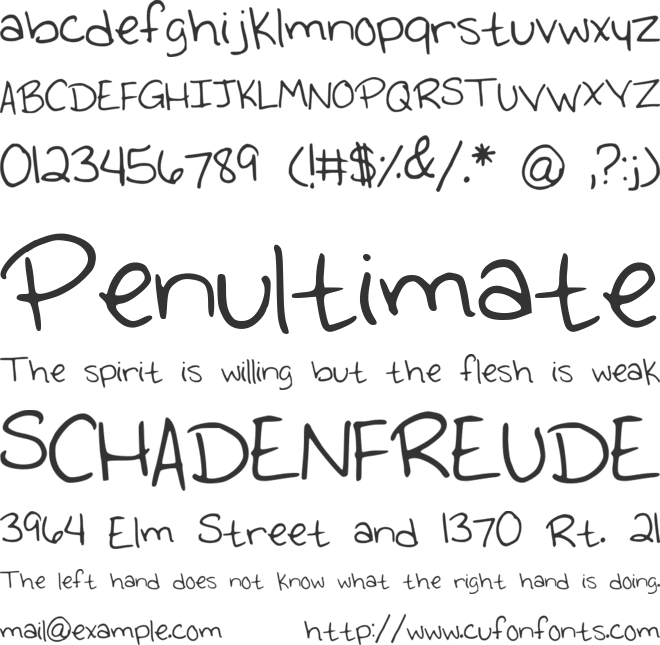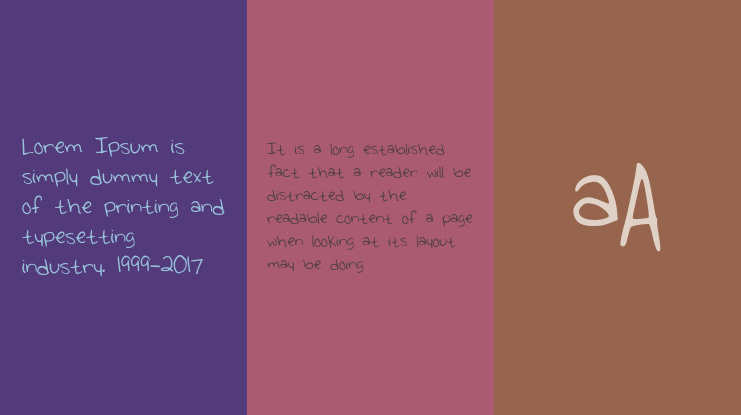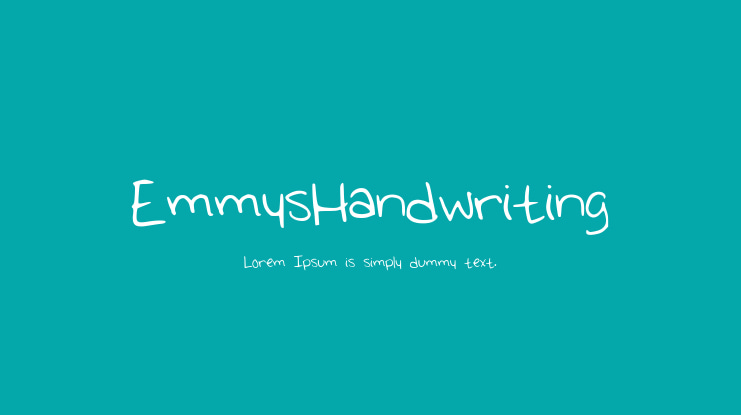
EmmysHandwriting Font
Just a quick hndwritten font, good for letter writing if your handwriting is similar. This IS my personal handwriting when I'm writing quickly. I will be doing a very clean one later on.